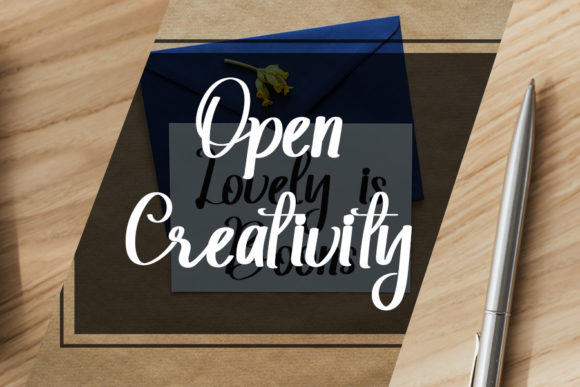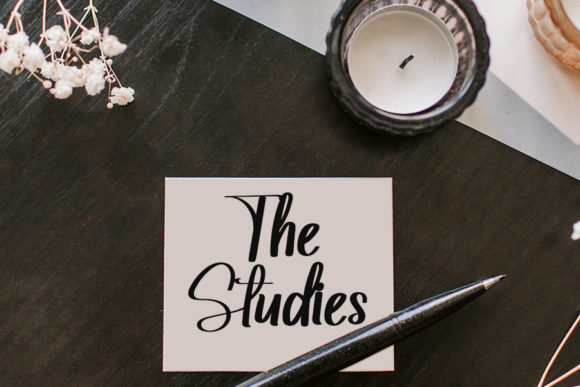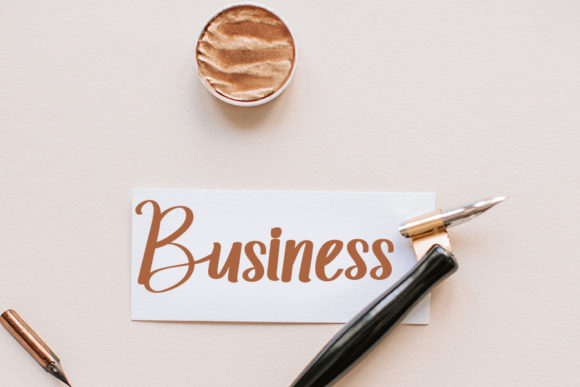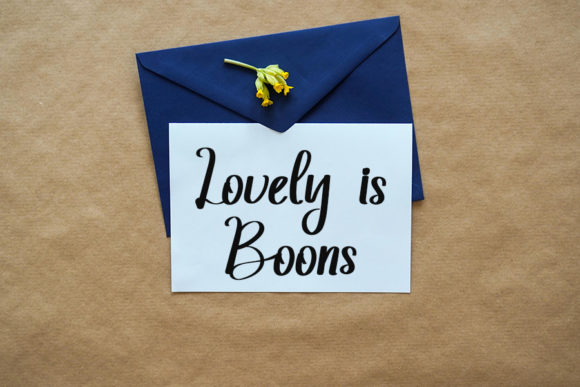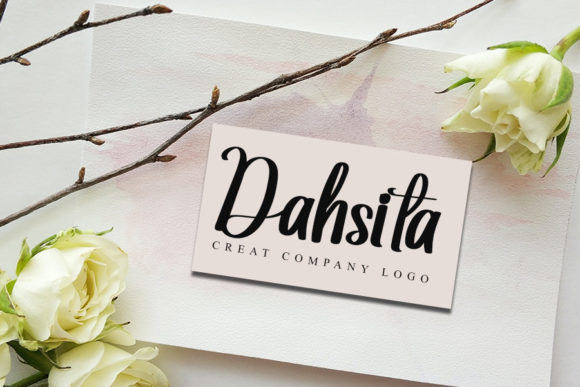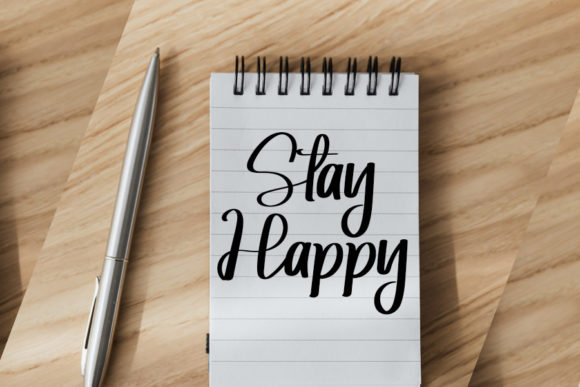
Romantically Font
About Romantically Font
Romantically is an elegant and dainty handwritten font that adds a touch of romance and delicacy to your designs. With its sweet and delicate swashes, this font is perfect for a variety of crafty ideas, from letterheads and titles to stationery.
The elegance of Romantically lies in its refined letterforms and intricate swashes. Each character is beautifully crafted, exuding a sense of grace and sophistication. The delicate swashes that accompany the letters add an extra level of charm and intricacy, making this font perfect for projects that require a romantic and whimsical touch.
Whether you’re designing letterheads, creating titles, or working on stationery, Romantically will bring a touch of elegance to your crafty ideas. Its original look and delicate details make it appealing to a wide range of design projects, adding a unique and artistic flair.
Embrace the elegance and daintiness of Romantically, and let it elevate your crafty designs with its romantic charm. Incorporate this font into your projects, and you’ll see how it adds a touch of beauty and sophistication.